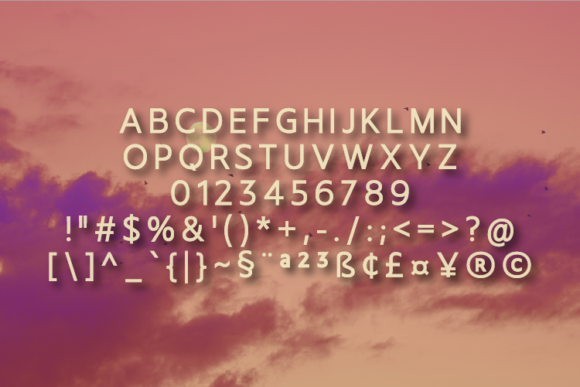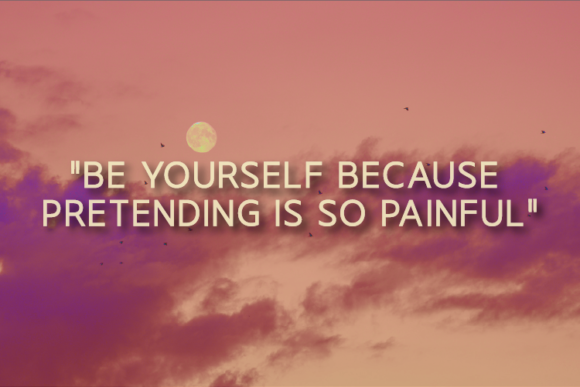
Introduction to Karthur Font
As designers, we’ve all been there – staring at a blank canvas, struggling to bring our vision to life. The right font can make all the difference, elevating our creative project from bland to grand. That’s where the Karthur Font comes in – a minimalist masterpiece that’s poised to take your designs to the next level.
With its clean lines and elegant feel, the Karthur Font is the perfect design resource for anyone looking to add a touch of sophistication to their work. Whether you’re creating a brochure, a website, or a social media campaign, this high-quality font is sure to impress. And the best part? It’s available for free download, making it an accessible and valuable addition to any designer’s toolkit.
Key Features of Karthur Font
- Designed with precision and care, Karthur Font boasts a unique and stylish aesthetic, perfect for adding a touch of sophistication to any design.
- Perfect for use in graphic design, digital art, and other creative projects where a high-quality font is essential.
Honest Review: Karthur Font
As a designer, I’m always on the lookout for high-quality design resources to elevate my creative projects. Recently, I stumbled upon the Karthur Font, and I’m excited to share my honest review with you.
Here’s what I love about the Karthur Font:
- ✨ High-quality design with crisp lines and smooth typography
- ✨ Transparent background makes it easy to customize and integrate with any design
- ⚠️ Limited font styles and variations (only a few options available)
Overall, I’m impressed with the Karthur Font’s potential and versatility. While it may not be perfect for every design project, it’s a great addition to any designer’s toolkit. With its high-quality design and transparent background, it’s a great choice for smaller projects or personal creative endeavors. Just be aware of the limitations and licensing restrictions before using it for commercial purposes.
Tips for Getting the Most Out of Karthur Font
Use the Karthur Font with a transparent background to create a clean and modern design. Experiment with different font sizes and styles to add visual interest to your project. You can also pair the Karthur Font with other high-quality design resources to create a unique and professional look.
The Karthur Font is ideal for creative projects, such as graphic design, digital art, and typography. It’s also great for personal projects, such as blog posts, social media graphics, and presentations.